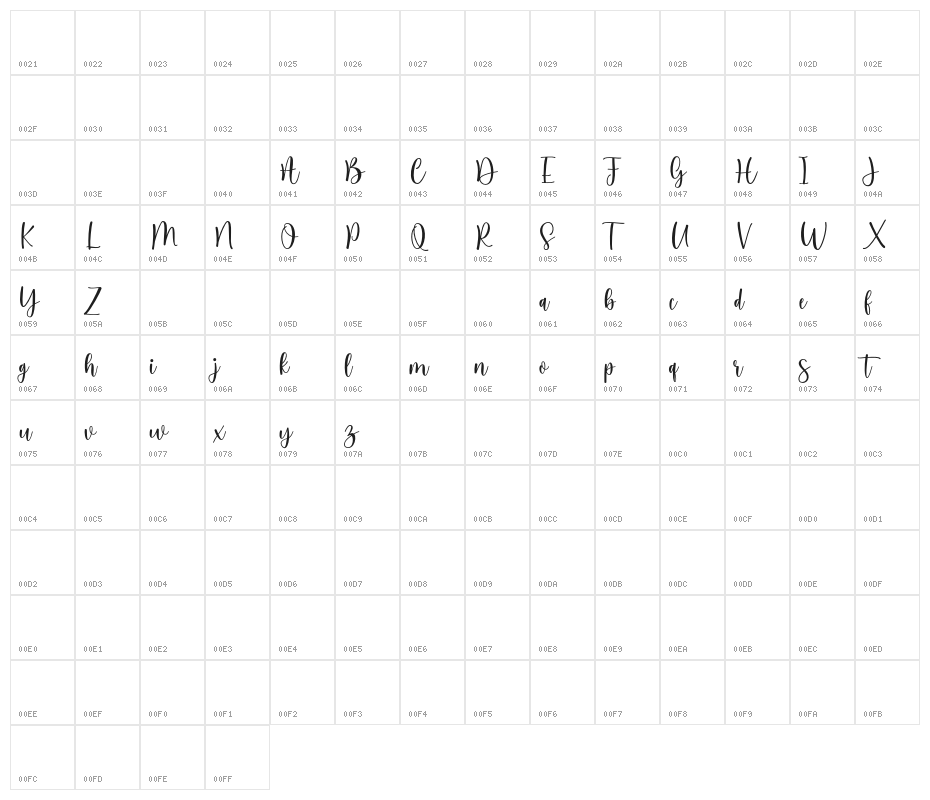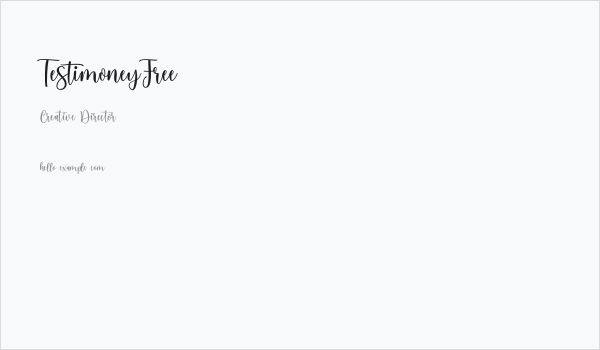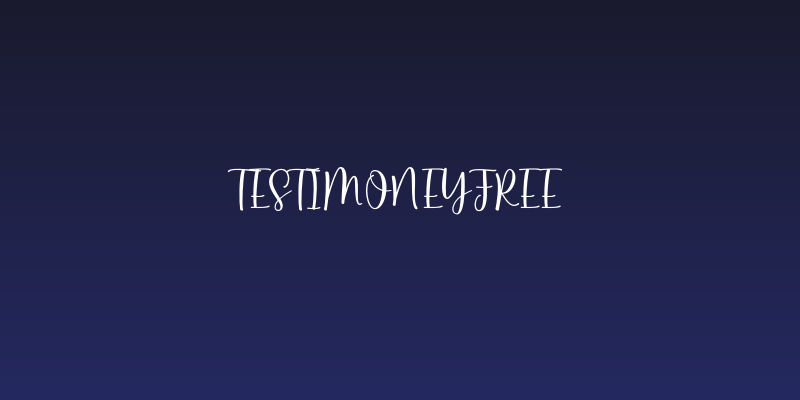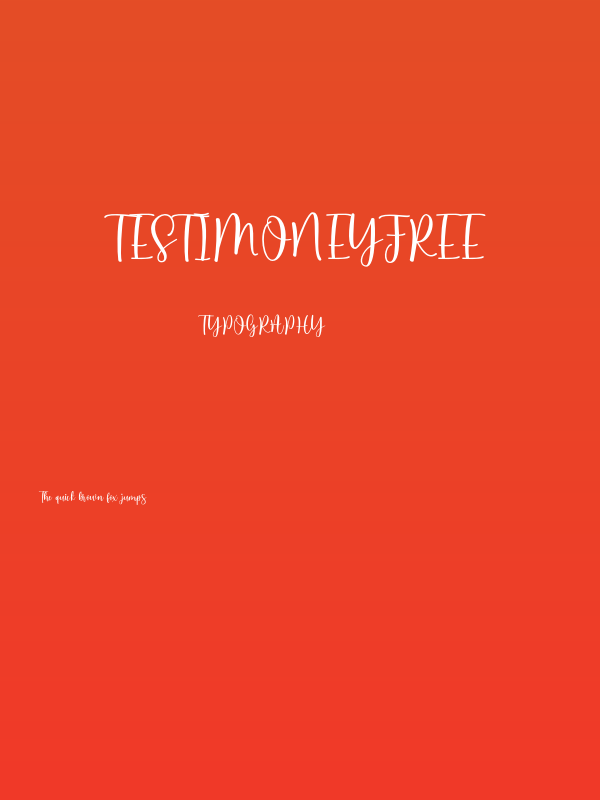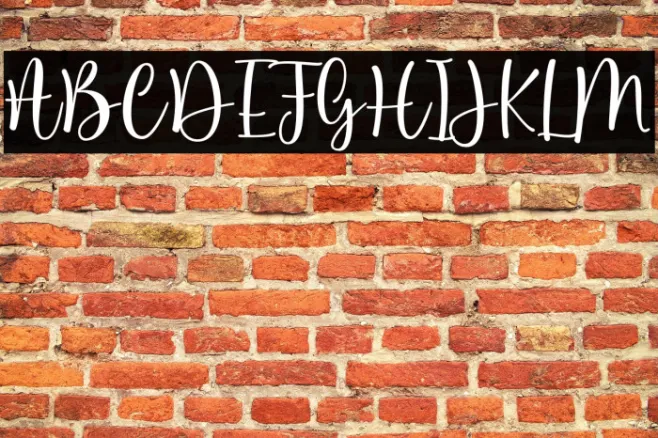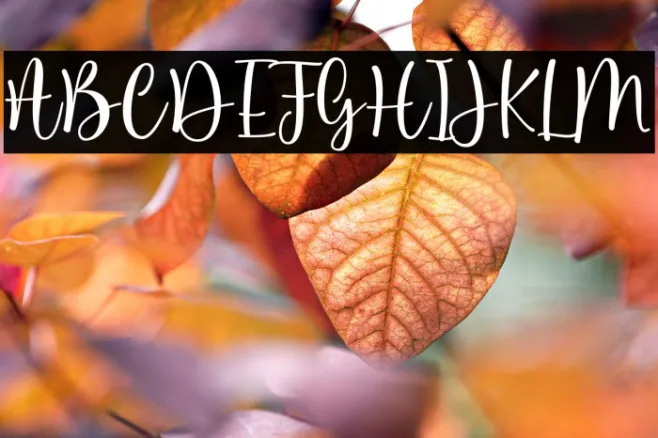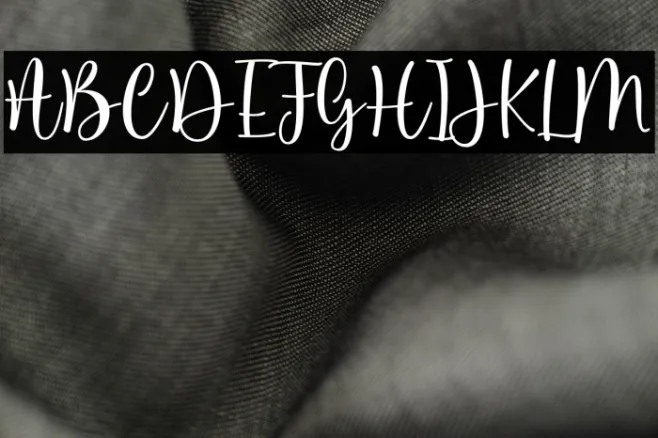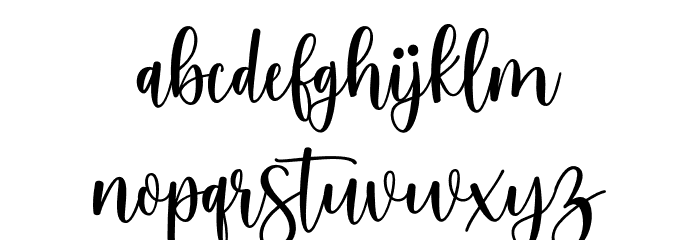
TestimoneyFree Font
TestimoneyFree Description
This font features an elegant and flowing script style, characterized by its smooth, cursive strokes and graceful curves. The uppercase letters are tall and slightly narrow, with distinctive loops and flourishes that add a touch of sophistication. The lowercase letters maintain a consistent flow, with some characters extending below the baseline, enhancing the font's dynamic appearance. The overall design is both artistic and legible, making it suitable for a variety of creative applications. Its handwritten quality gives it a personal and inviting feel, perfect for projects that require a touch of elegance and charm.
| Proposed Projects | Ideal for wedding invitations, greeting cards, branding, and elegant packaging designs. |